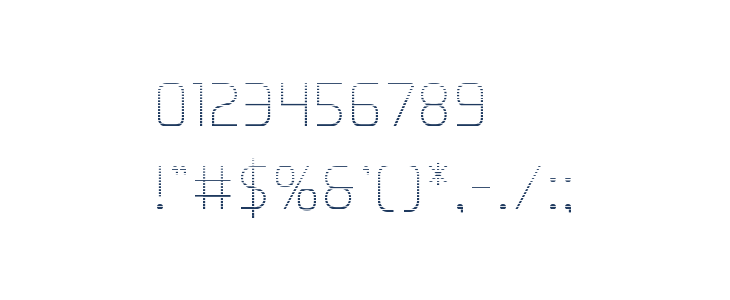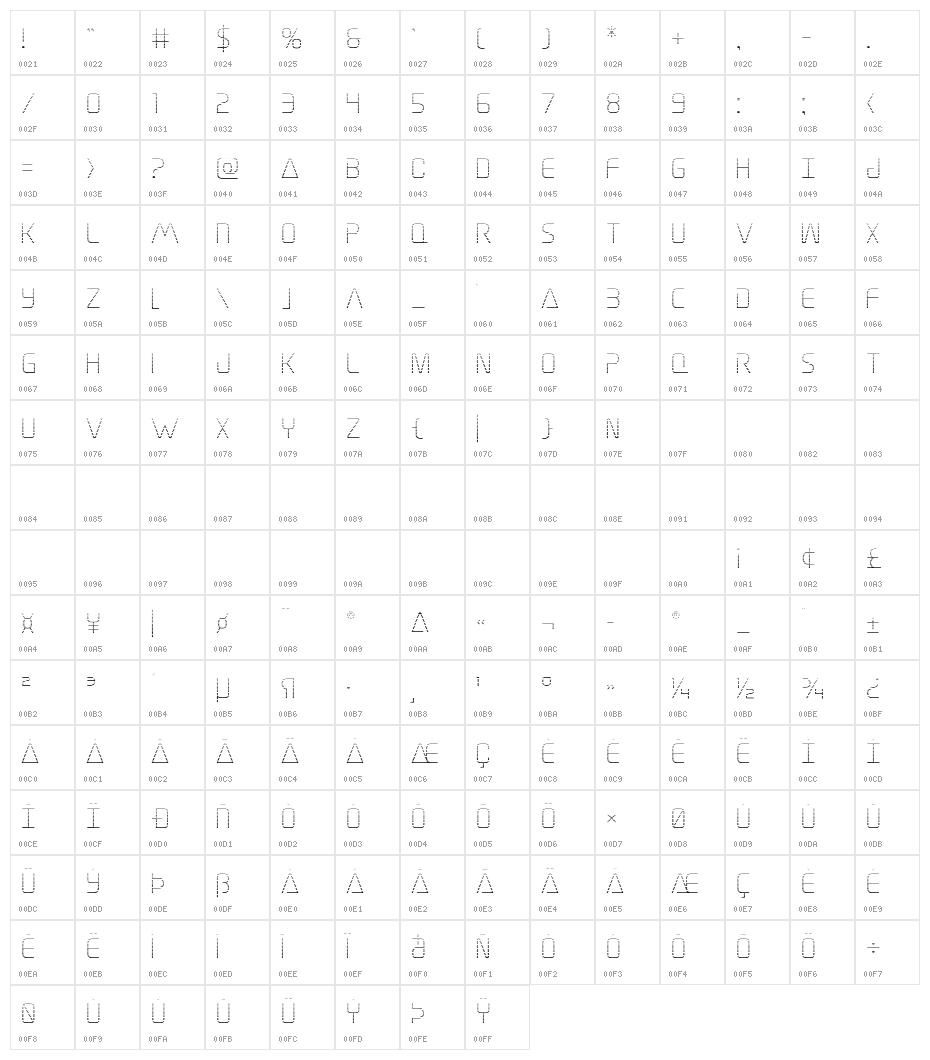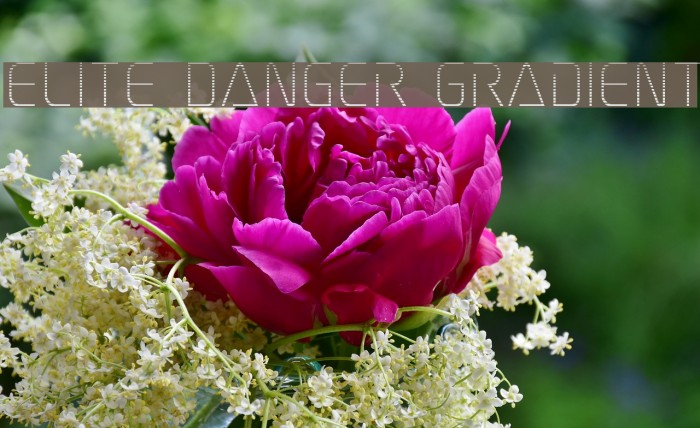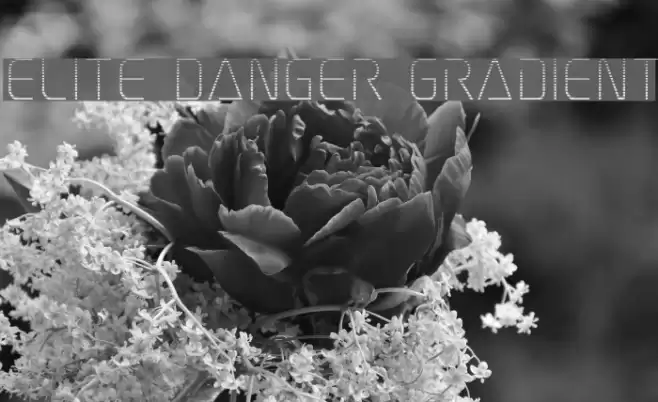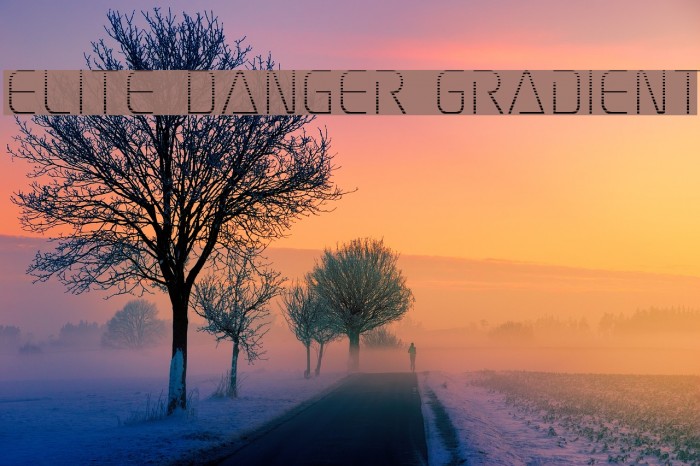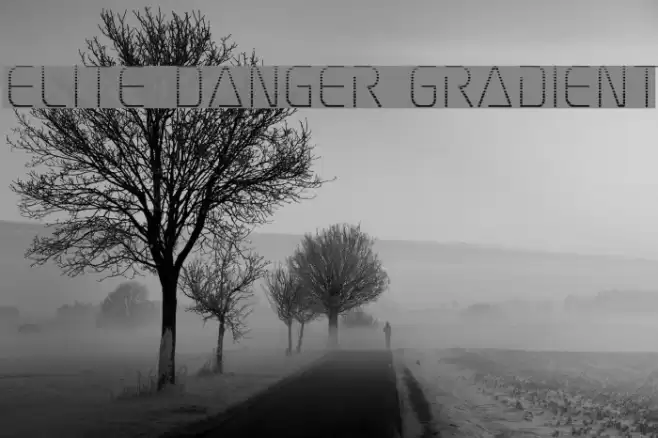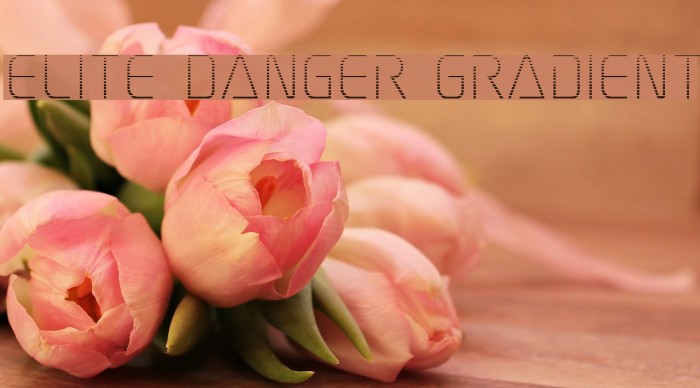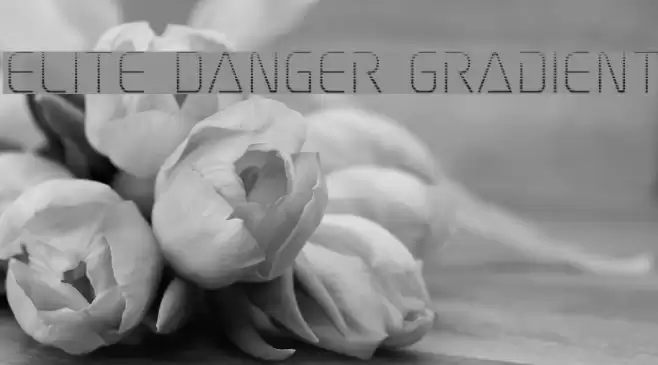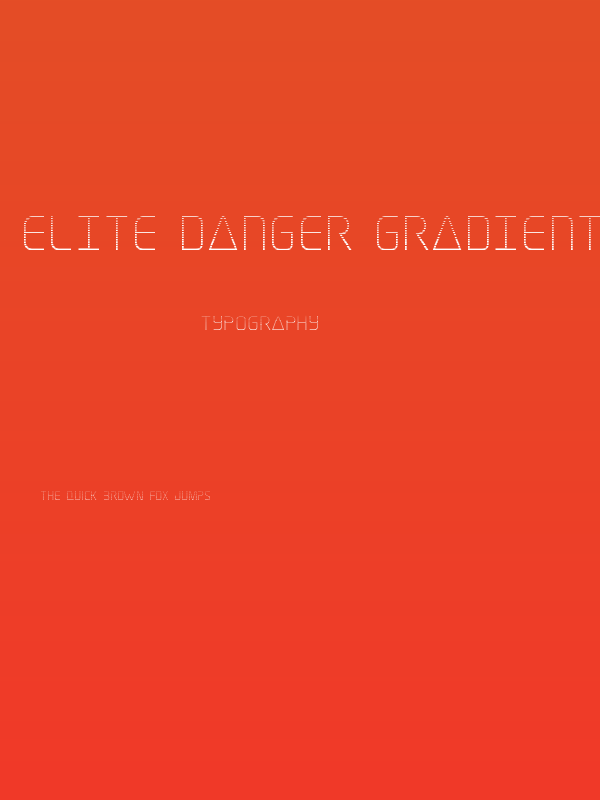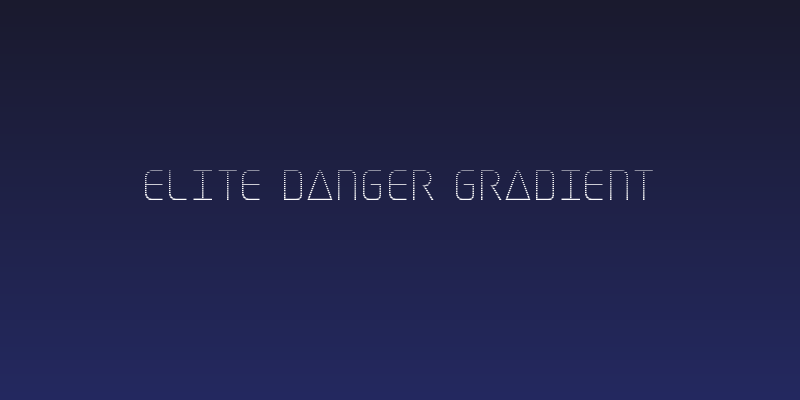
Elite Danger Gradient Font
Elite Danger Gradient Description
This font features a futuristic and digital aesthetic, characterized by its dotted and segmented letterforms. The uppercase and lowercase letters maintain a consistent geometric structure, with sharp angles and straight lines that give it a modern, tech-inspired look. The numerals and special characters follow the same design principles, ensuring uniformity across all glyphs. The font's unique style makes it ideal for projects that require a cutting-edge or sci-fi theme. Its distinct appearance is both eye-catching and functional, making it suitable for various design applications.
| Proposed Projects | Ideal for sci-fi themed designs, tech branding, digital interfaces, and futuristic posters. |